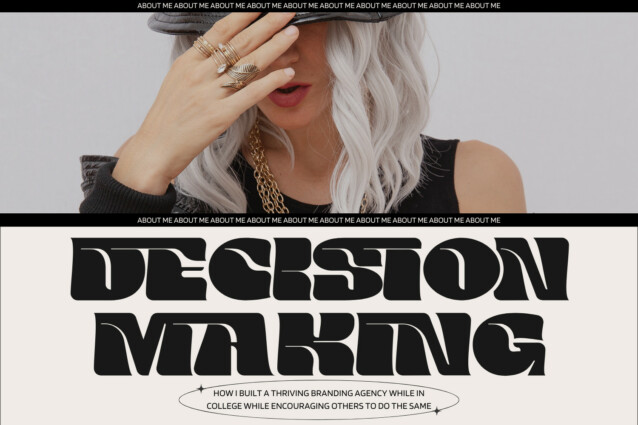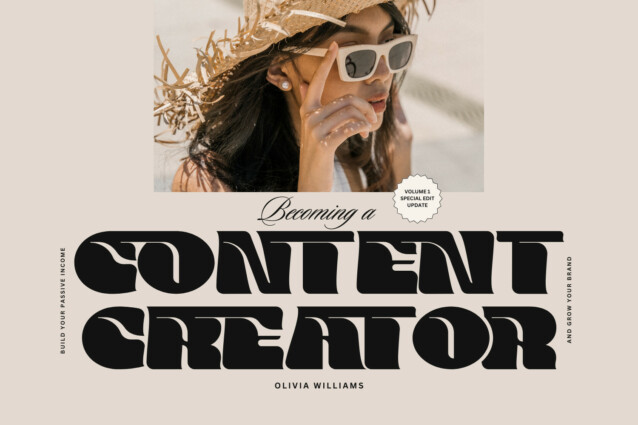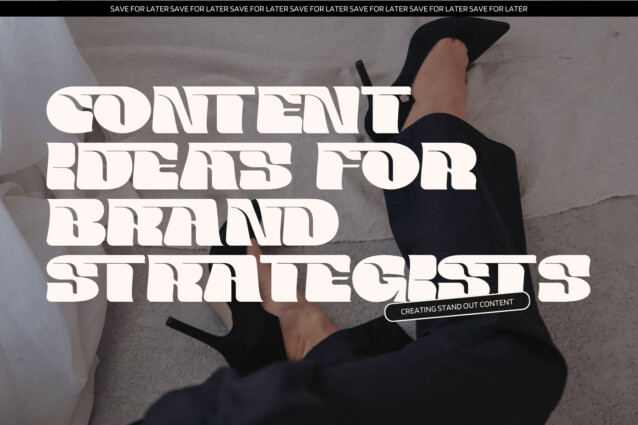
Medium Unique Font
Medium Unique Font is a display typeface full of retro power. It’s quirky, groovy, and funky — definitely charming, is all about playful, bold vibes, with a dash of cuteness that’s hard to resist, thanks to its soft corners. This font is like a friendly face you just want to hug, and it brings that fun-loving spirit to your designs. Complete with ligature, alternative glyphs become an attractive choice. It is perfect for branding, titling, headline, and more.
Medium Unique was built with OpenType features and includes 100 ligatures, alternate, numbers, punctuation, and it also supports other languages.
AC AD AL AN AR AS AT AU AV BE CA CE CH CO CT DE DI EA EC ED EE EL EM EN EP ER ES ET FE FO FR GE HA HE HI HO IE IC IL IN IO IR IS IT JU KE LA LE LI LL LO LY MA ME MI NC ND NE NG NO NT NS OC OF OM ON OO OP OR OT OU OW PA PR RA RD RE RI RO RS RT SE SH SI SO SS ST TA TE TH TI TO TR TT UM UN UR VE WI WO